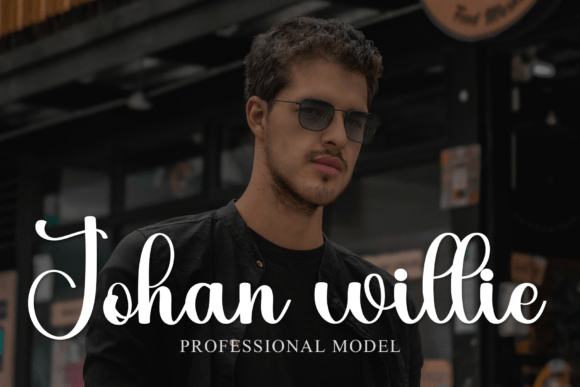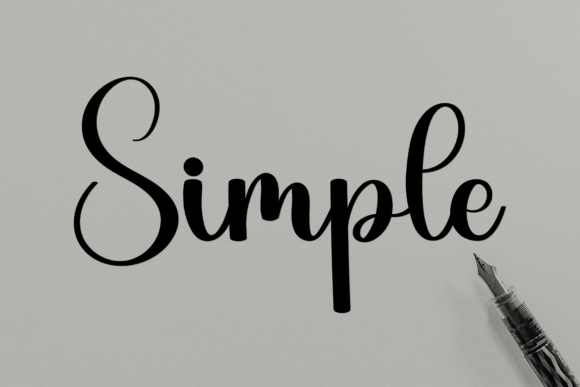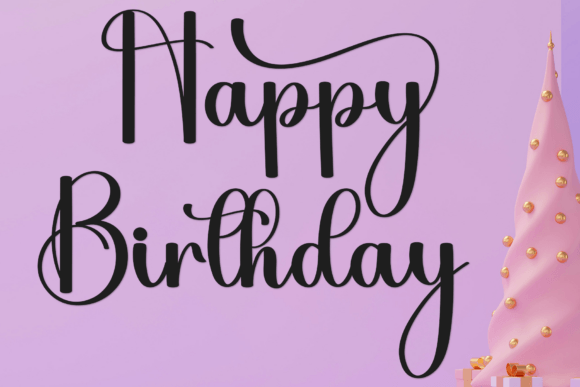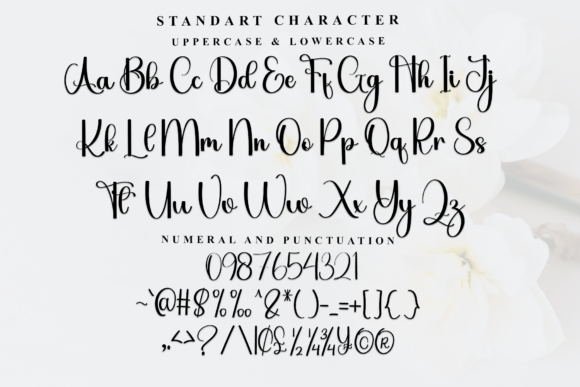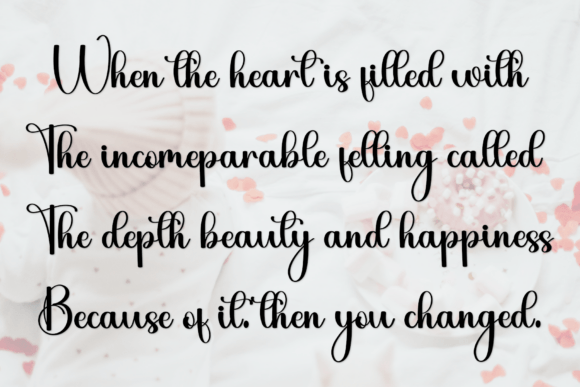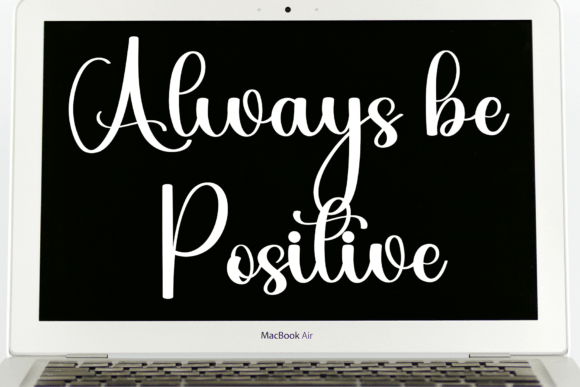
Babyday Font: The Ultimate Holiday Typeface for Your Festive Designs
The holiday season is upon us, and what better way to get into the spirit than with a font that embodies the cheer and joy of this special time of year? Look no further than the Babyday Font, a festive and happy typeface that’s perfect for adding a touch of charm to your designs. In this article, we’ll dive into the world of Babyday Font, exploring its unique features, uses, and benefits for designers and crafters alike.
What is Babyday Font?
Babyday Font is a decorative typeface that’s specifically designed to capture the essence of the holiday season. With its playful and whimsical flair, this font is sure to bring a smile to anyone’s face. Its unique design elements, including intricate details and ornate flourishes, make it the perfect choice for creating festive and eye-catching designs.
Key Features of Babyday Font
- Decorative Elements: Babyday Font boasts an array of decorative elements, including snowflakes, holly leaves, and other festive motifs that will add a touch of magic to your designs.
- Unique Flair: This font’s distinctive style sets it apart from other typefaces, making it perfect for creating one-of-a-kind designs that stand out from the crowd.
- PUA Coded: Babyday Font is PUA (Private Use Area) coded, which means you can easily access all the amazing glyphs and ligatures without any hassle.
Uses for Babyday Font
So, what can you use Babyday Font for? The possibilities are endless! Here are a few ideas to get you started:
- Greeting Cards: Create festive and personalized greeting cards for friends and family, complete with intricate designs and cheerful typography.
- Gift Labels: Add a touch of elegance and whimsy to your gift labels, making them perfect for presents, treats, and other holiday goodies.
- Holiday-Themed Projects: From Christmas decorations to New Year’s Eve invitations, Babyday Font is the perfect choice for any holiday-themed project.
So, why should designers and crafters choose Babyday Font for their projects? Here are just a few benefits:
- Easy to Use: With its PUA coding, Babyday Font is easy to use, even for those with limited design experience.
- Customizable: This font’s unique design elements and glyphs make it easy to customize your designs and create something truly unique.
- Time-Saving: With Babyday Font, you can create stunning designs in no time, saving you hours of work and allowing you to focus on other creative projects.